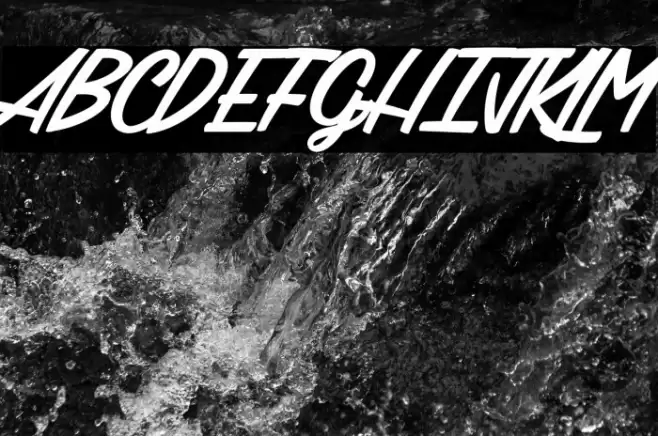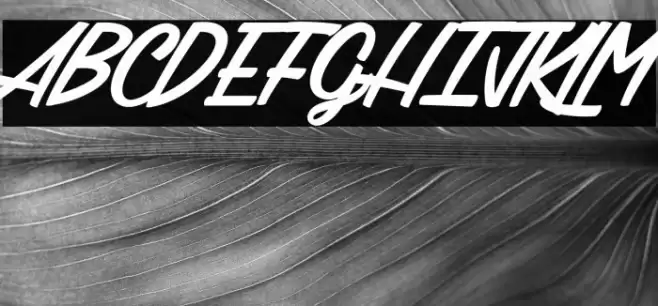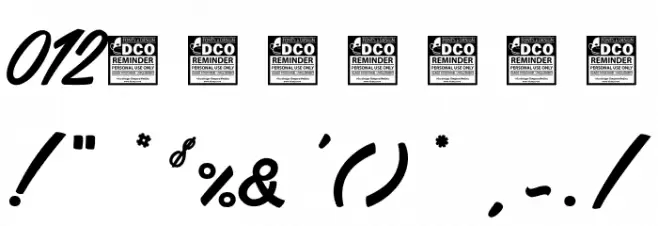
Citrus & Berries_PersonalUseOnly Font
Citrus & Berries_PersonalUseOnly Description
This font features a dynamic and flowing script style, characterized by its bold and cursive letterforms. The uppercase letters exhibit a strong, confident presence with smooth, sweeping curves and a slight slant, giving an impression of elegance and fluidity. The lowercase letters maintain this cursive style, with consistent stroke widths and a harmonious connection between characters. The numerals are similarly styled, integrating seamlessly with the overall design. Special characters are crafted with the same attention to detail, ensuring a cohesive look across all glyphs. This font is ideal for projects that require a personal, handwritten touch, while still maintaining readability and style.
A bold, cursive script font with flowing, elegant letterforms from Uncategorized fonts.
- Font: Citrus & Berries_PersonalUseOnly
- Proposed Projects: Ideal for wedding invitations, greeting cards, branding, and logo design where a personal, elegant touch is desired.
- Use Case: Logos, Headlines, Invitations